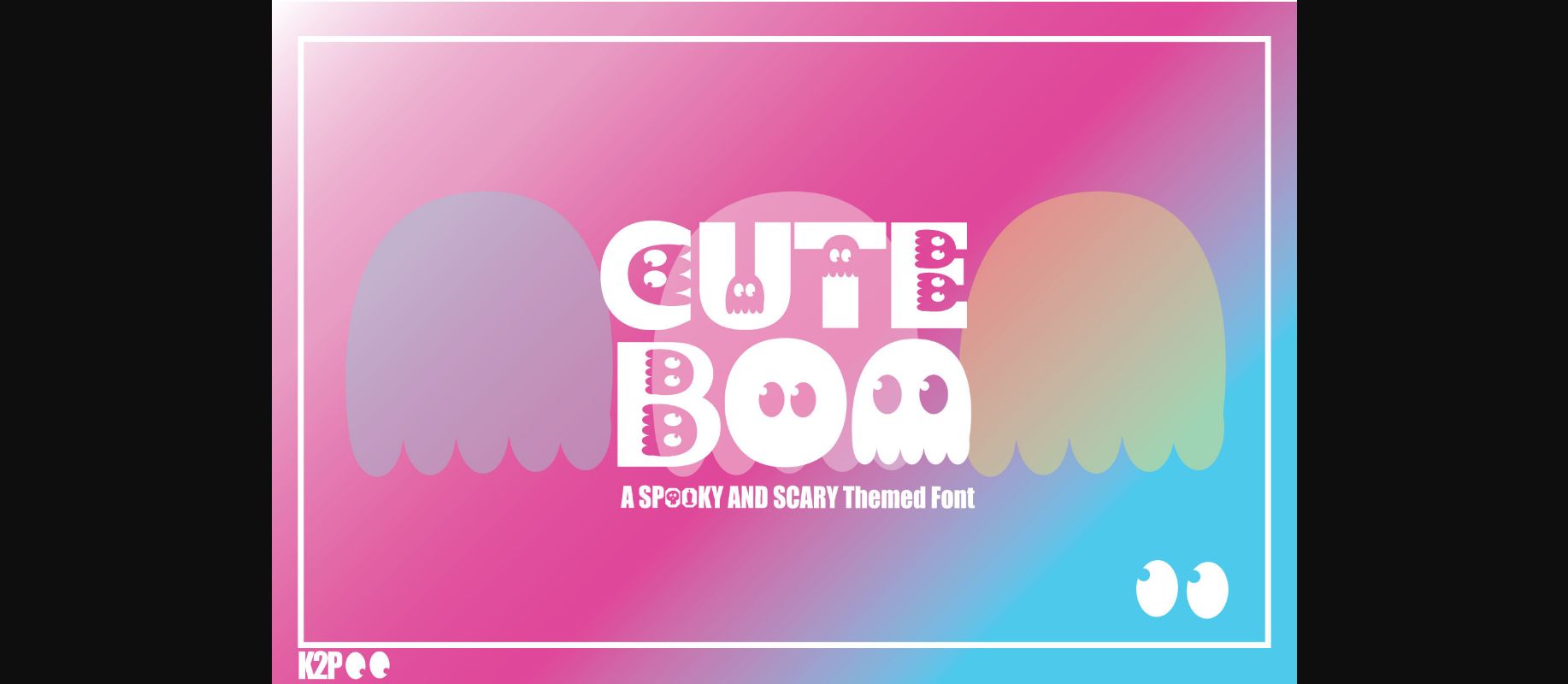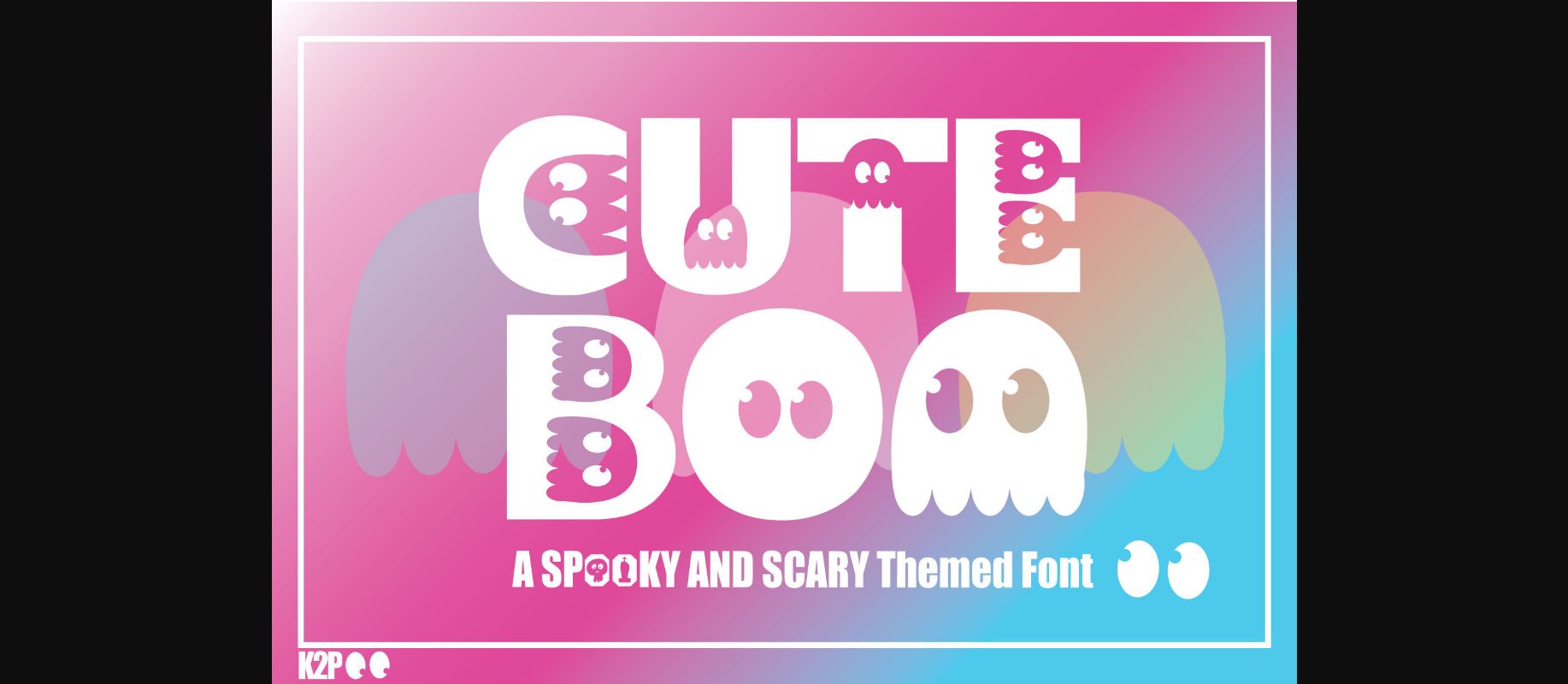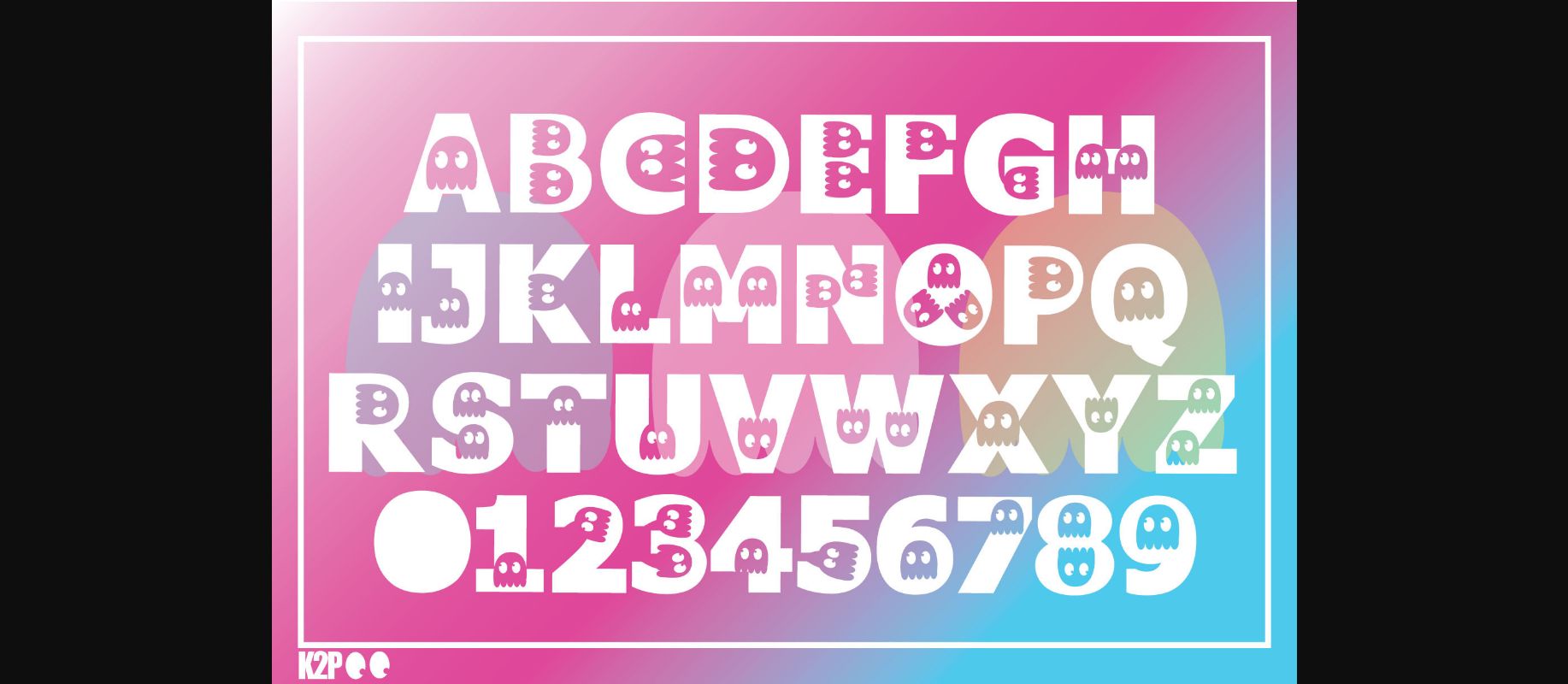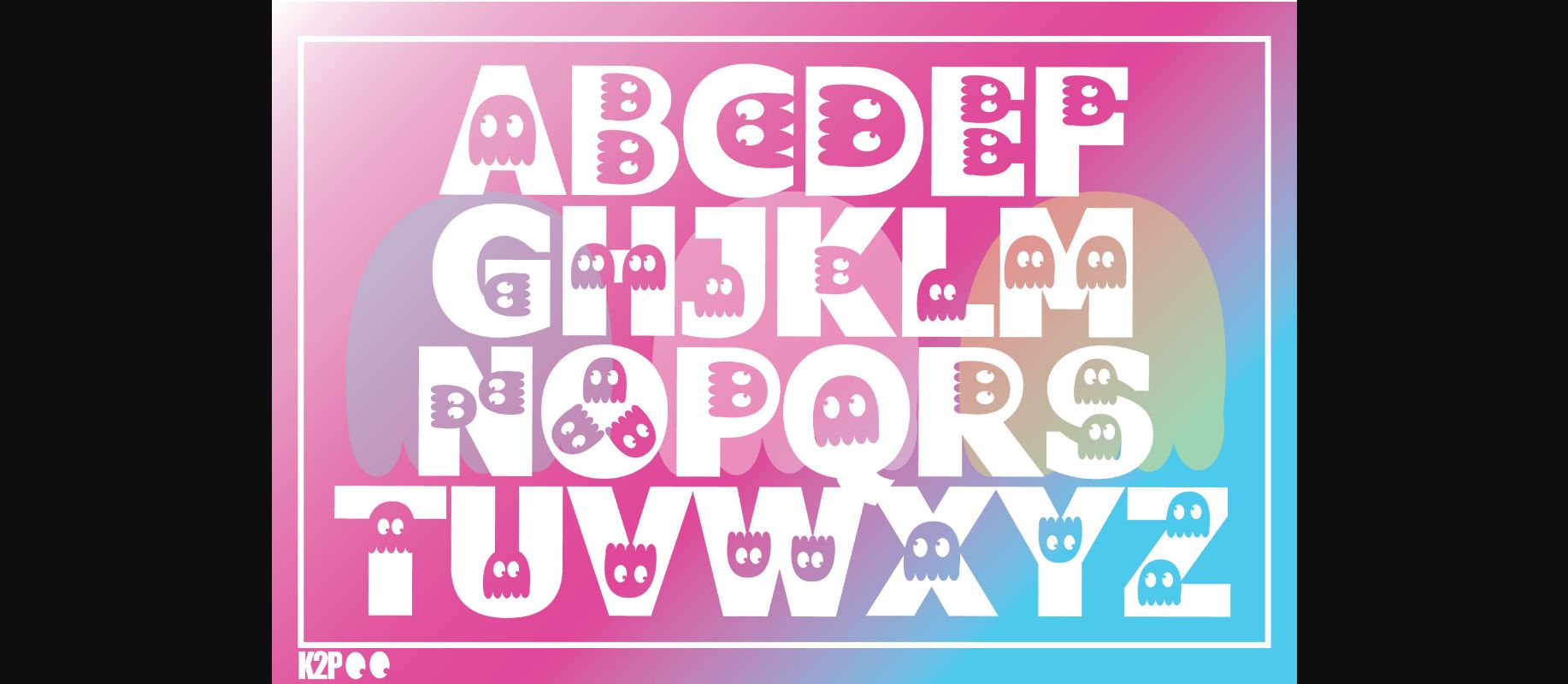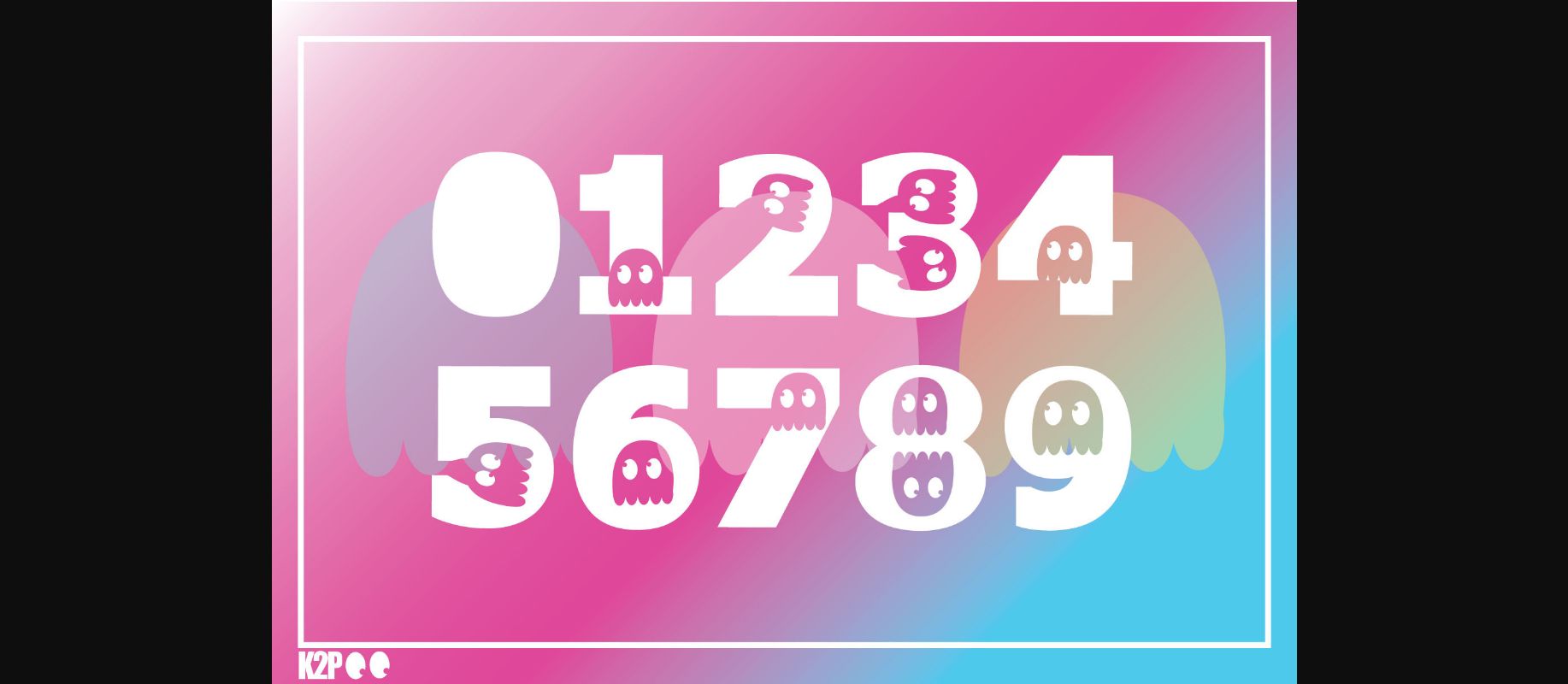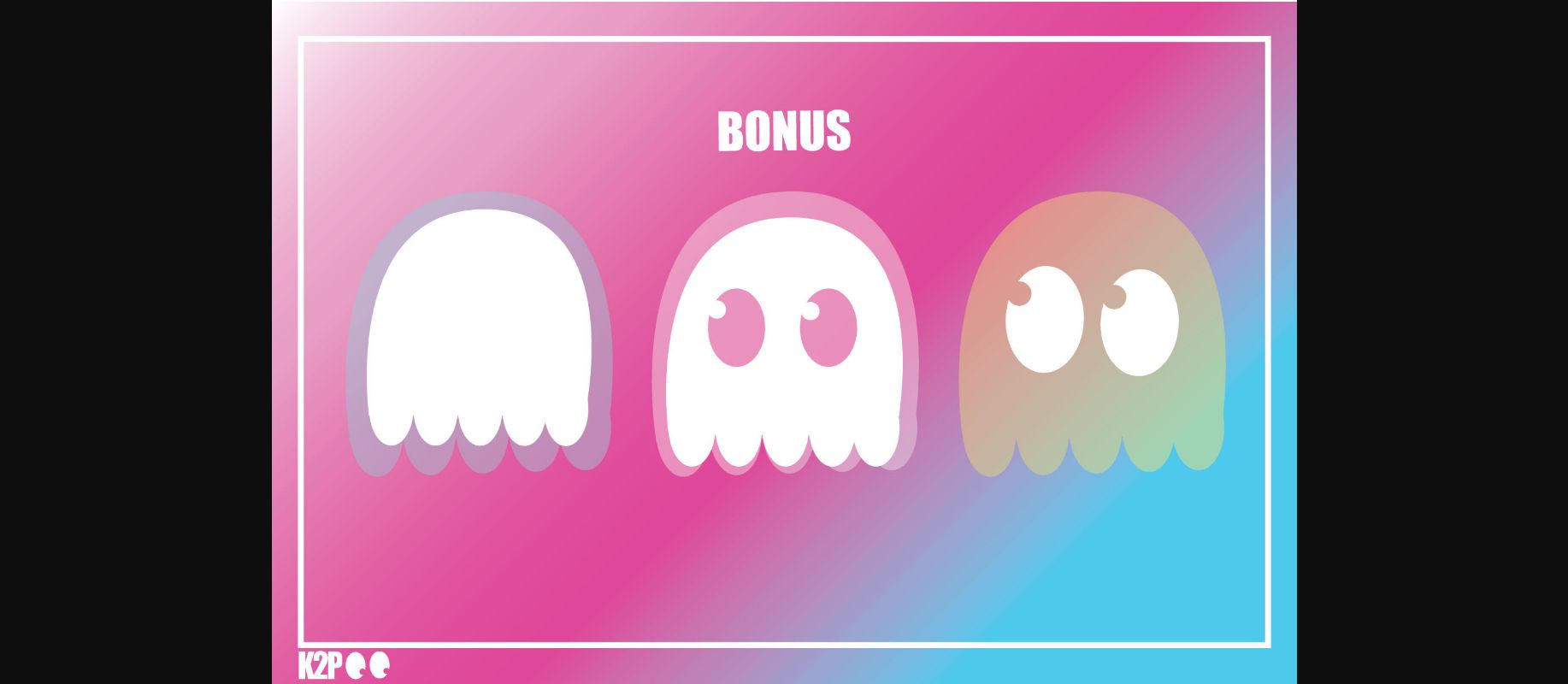
Cute Boo Font
About Cute Boo Font
Cute boo is a thick-lettered and spooky decorative font. It is perfectly suitable for any Halloween-related project or crafty idea! The only limit is your imagination.